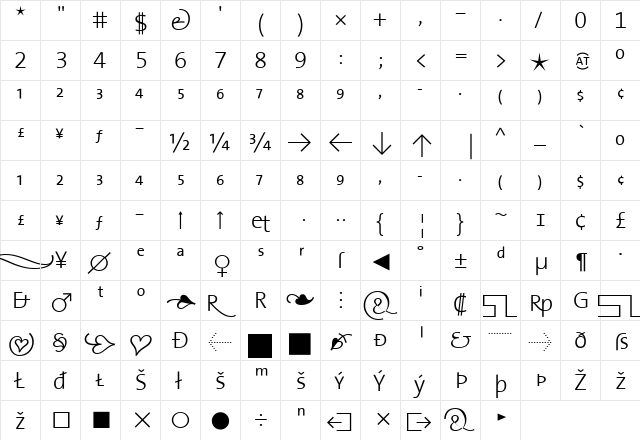
The Sans Light- Regular
| Foundry | Copr. Luc as de Groot |
The Sans Light- is a composed and adaptable typeface that performs quietly and consistently across a wide range of design contexts. Its slender proportions lend an understated elegance to any composition.